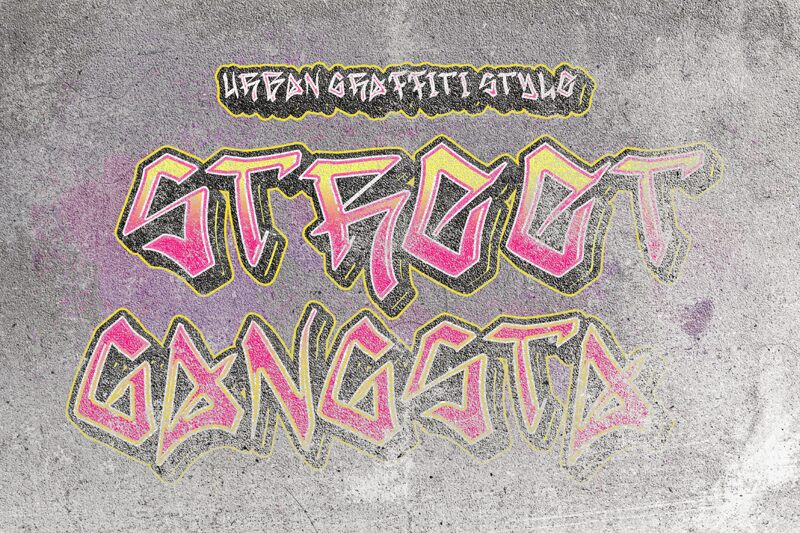
Street Gangsta Font by Yoga Letter is a free graffiti-inspired font with a bold, urban character. The designer took inspiration from the streets and created a unique, handcrafted style that stands out. This font is all about breaking the rules and standing out without fear, so use it to express yourself.
Create an edgy aesthetic that fits your extreme sports posters, urban magazine headlines, and streetwear brands. Try it on logo designs, flyers, book covers, album covers, apparel tags, branding items, and business cards.